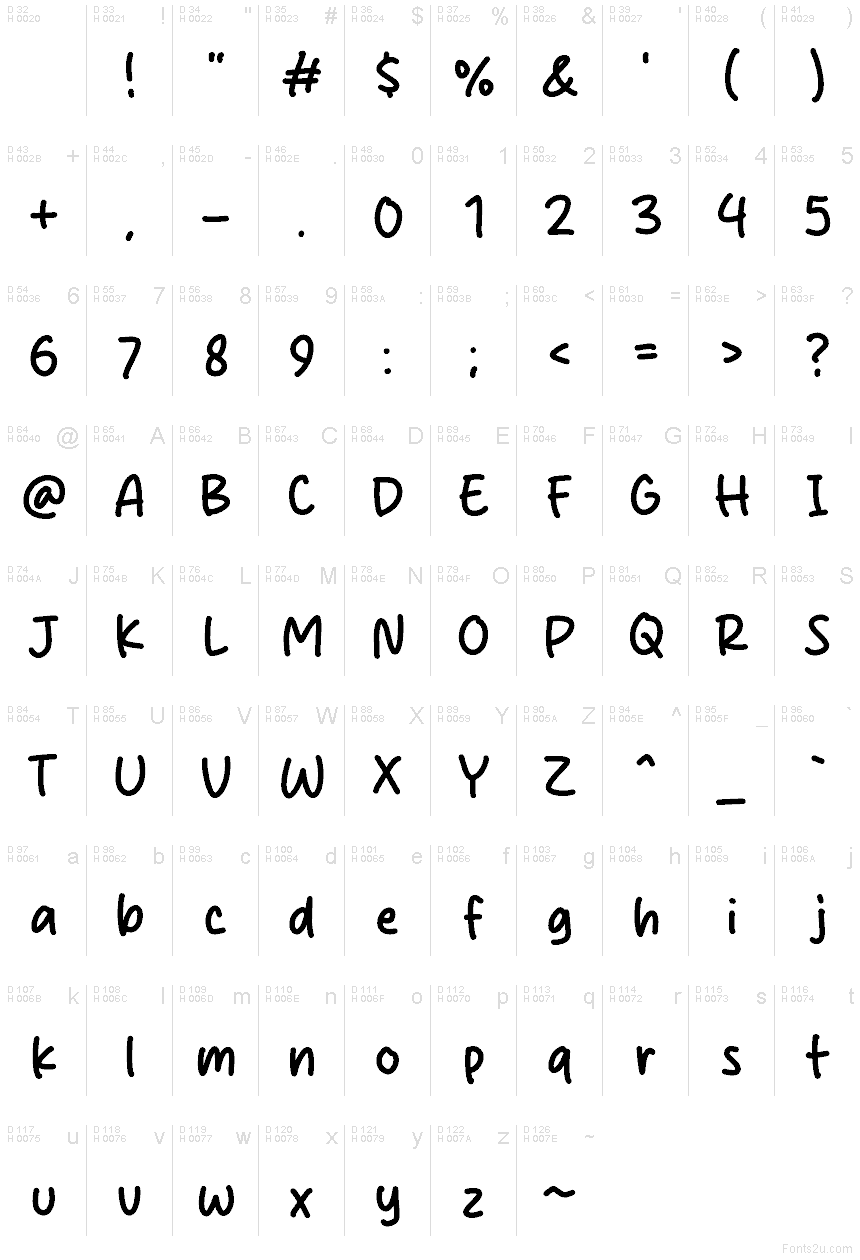
Sweet Biscuit
Sweet Biscuit font by MJType is a free handwritten typeface that solves a familiar pain: friendly handwriting that stays clean and readable beyond a quick note. Its smooth, rounded strokes feel inky and a touch squishy, but the rhythm is steady, spacing generous, and the forms stay clear at small sizes. That balance gives you warmth without the wobble—inviting, approachable, and easy to skim.
Using Sweet Biscuit, you can brighten bakery packaging, cafe menus, kids’ book covers, recipe cards, stickers, social posts, and cheerful greeting cards. The consistent weight holds up on labels and headlines alike, while the soft curves add charm without clutter. For a tidy combo, pair this free font’s titles with a simple sans for body text, or bump letter-spacing slightly for airy, playful headers.